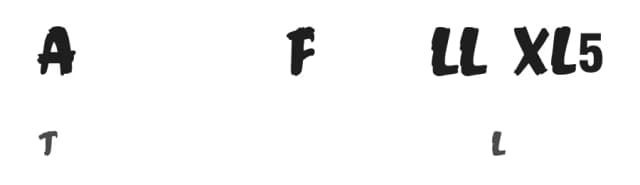
About Buka Bird Font
Inspired by Disney's Lilo & Stitch Movie Title Font. The materials are provided as FREEWARE for your enjoyment, and is NOT be used for any commercial or publication purposes.
Buka Bird Font is a decorative font that shines as a display or heading face. Pair it with a clean sans-serif or serif font for body text β the contrast creates a clear hierarchy while the two styles stay balanced and easy to read.